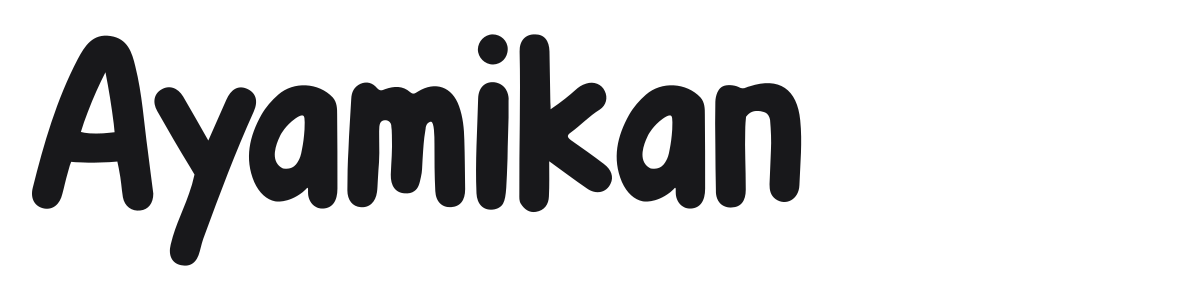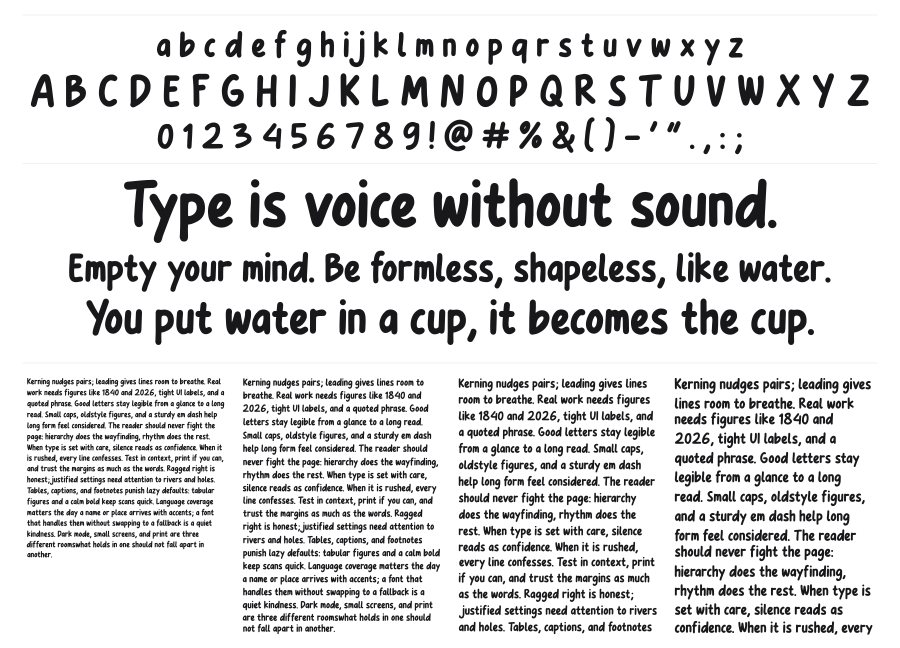
Ayamikan
Ayamikan is a bold rounded sans with thick, softly capped strokes and a warm, casual personality. The wide proportions and near-monoweight construction keep it legible at headline sizes while the rounded terminals push it firmly into friendly territory. It suits food branding, kids' media, and anywhere a little approachable energy is needed.